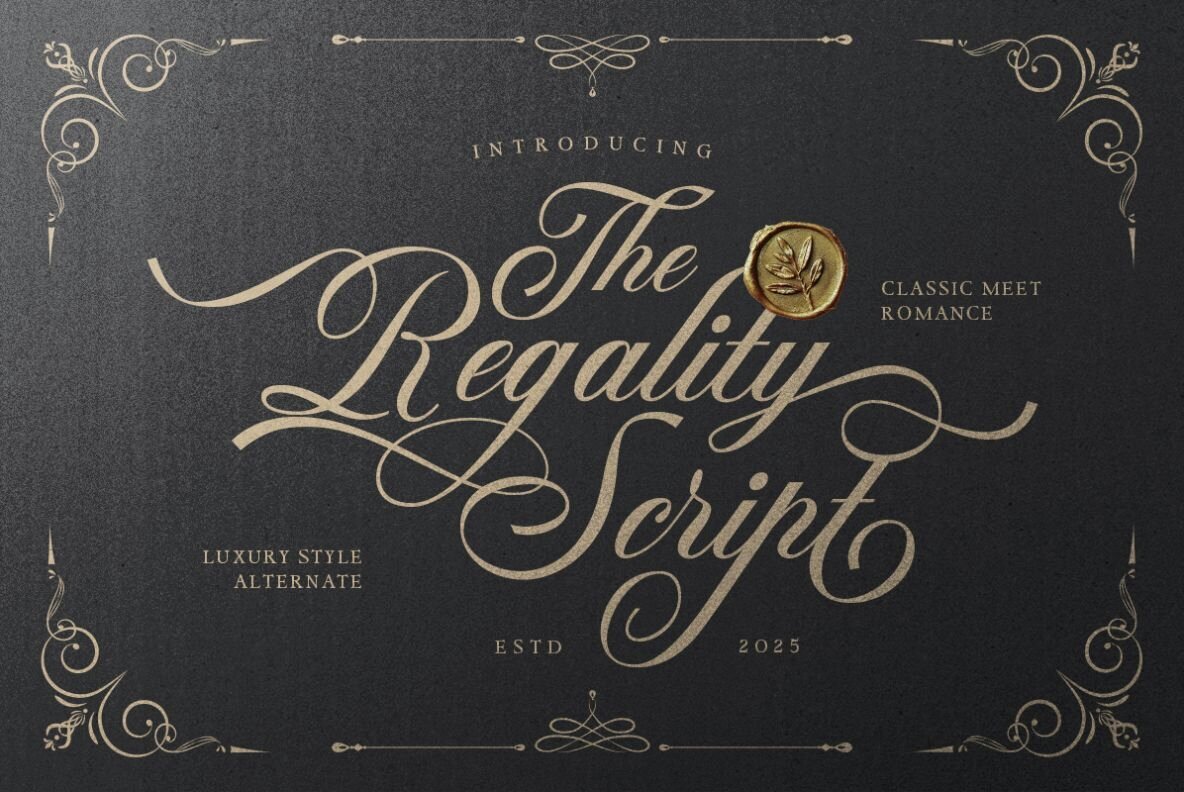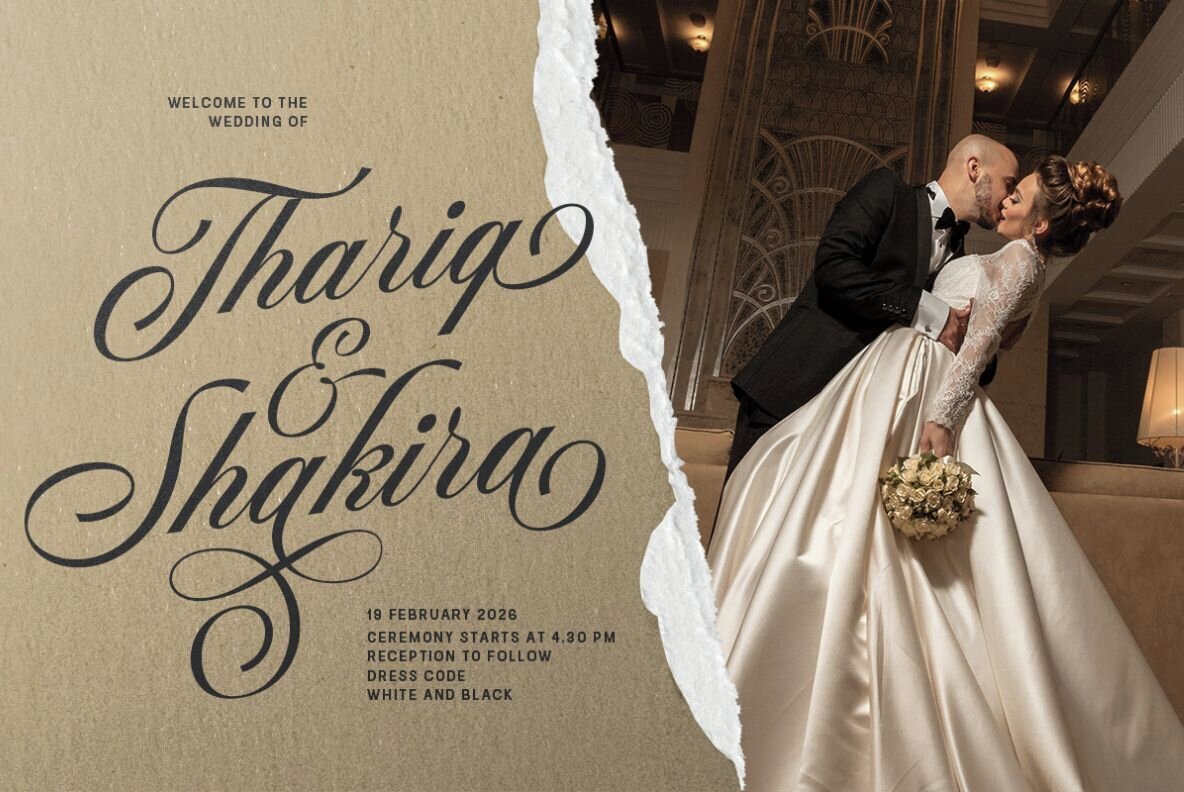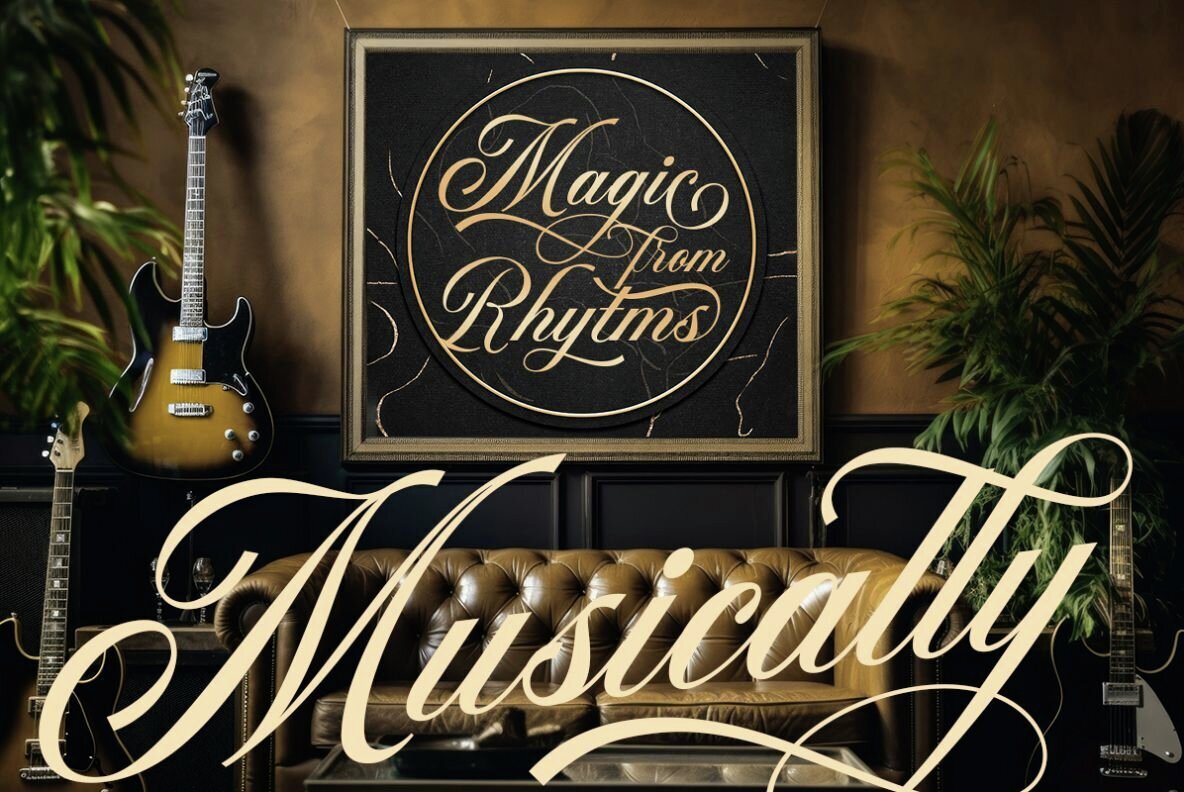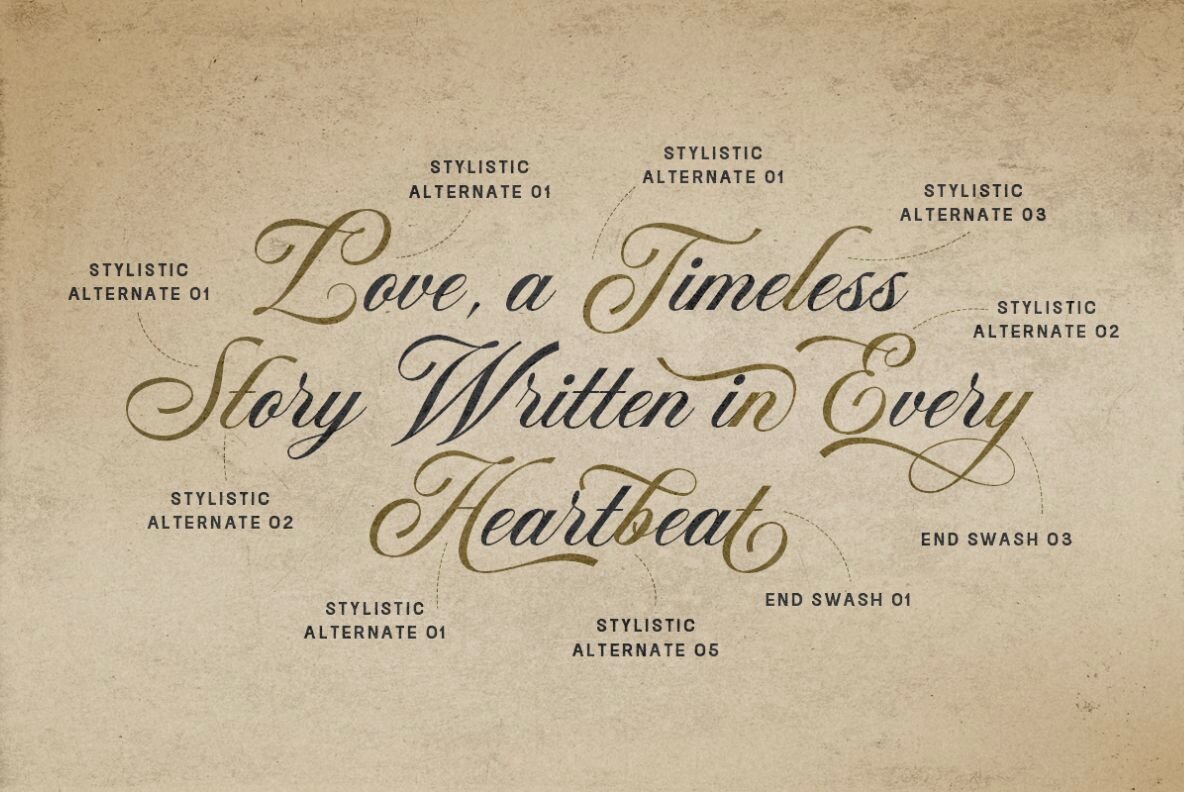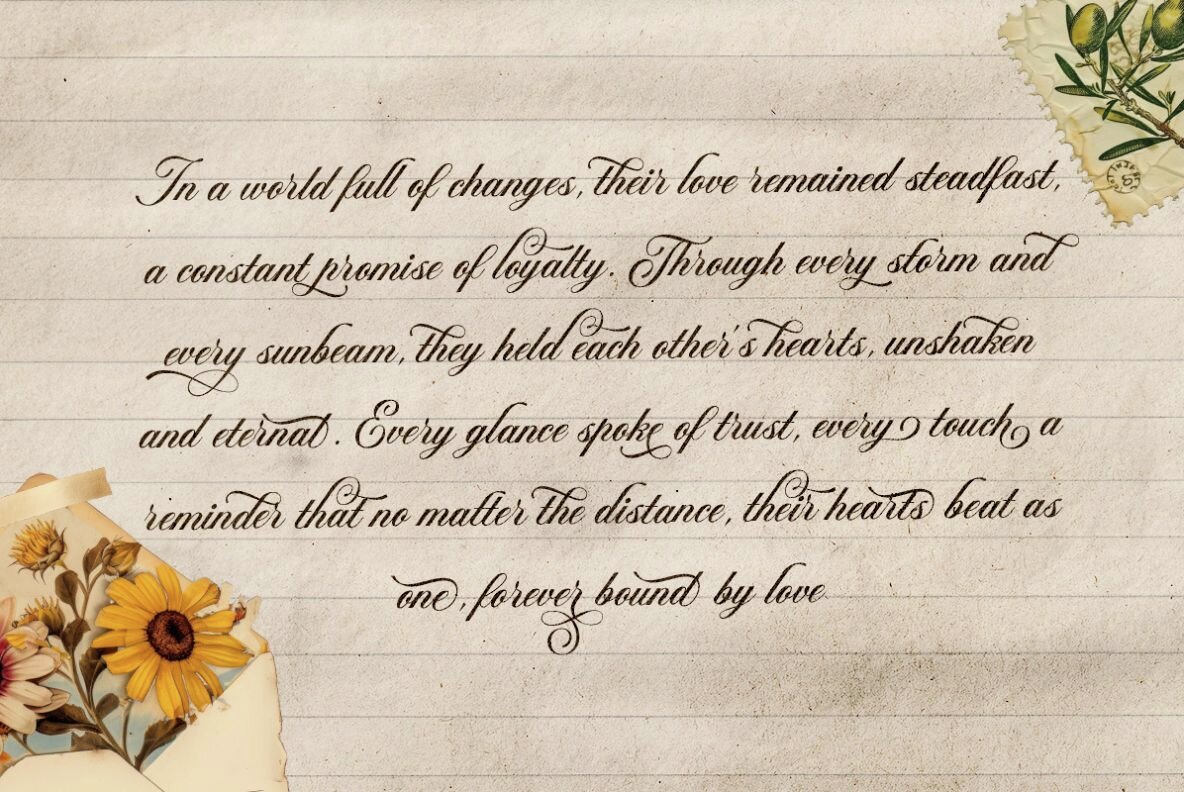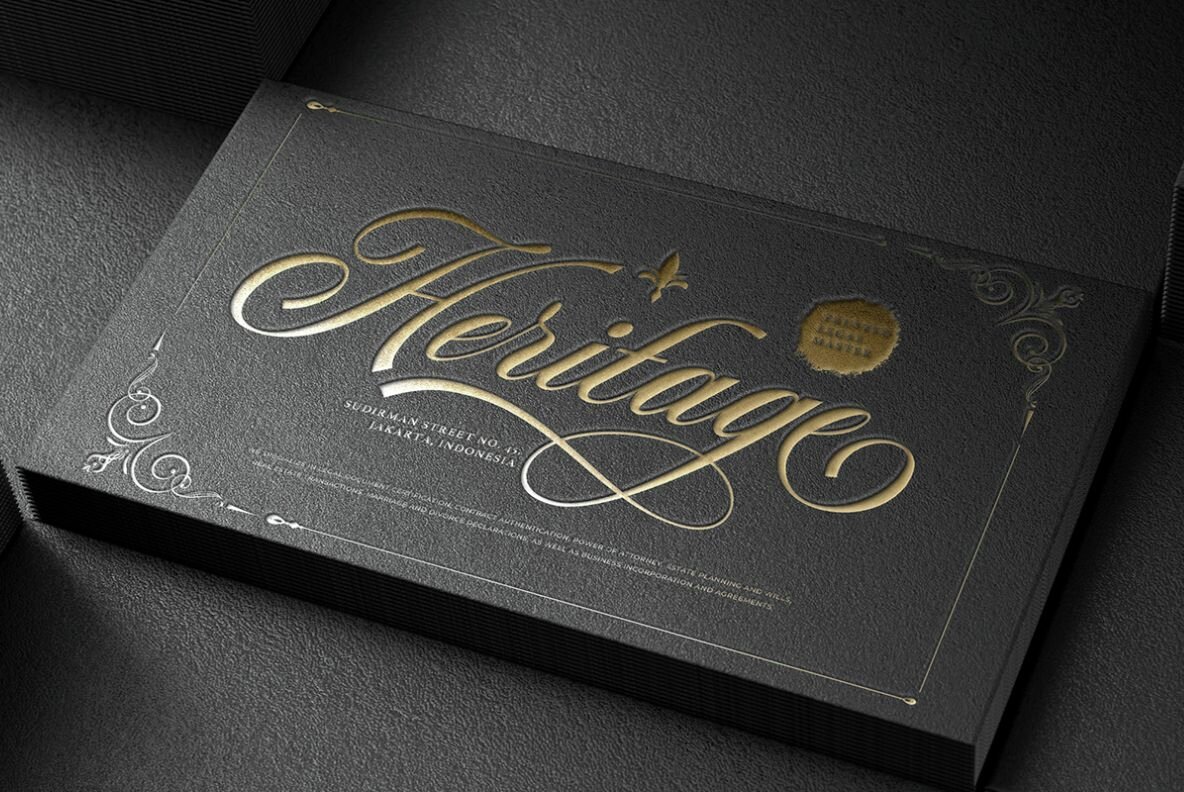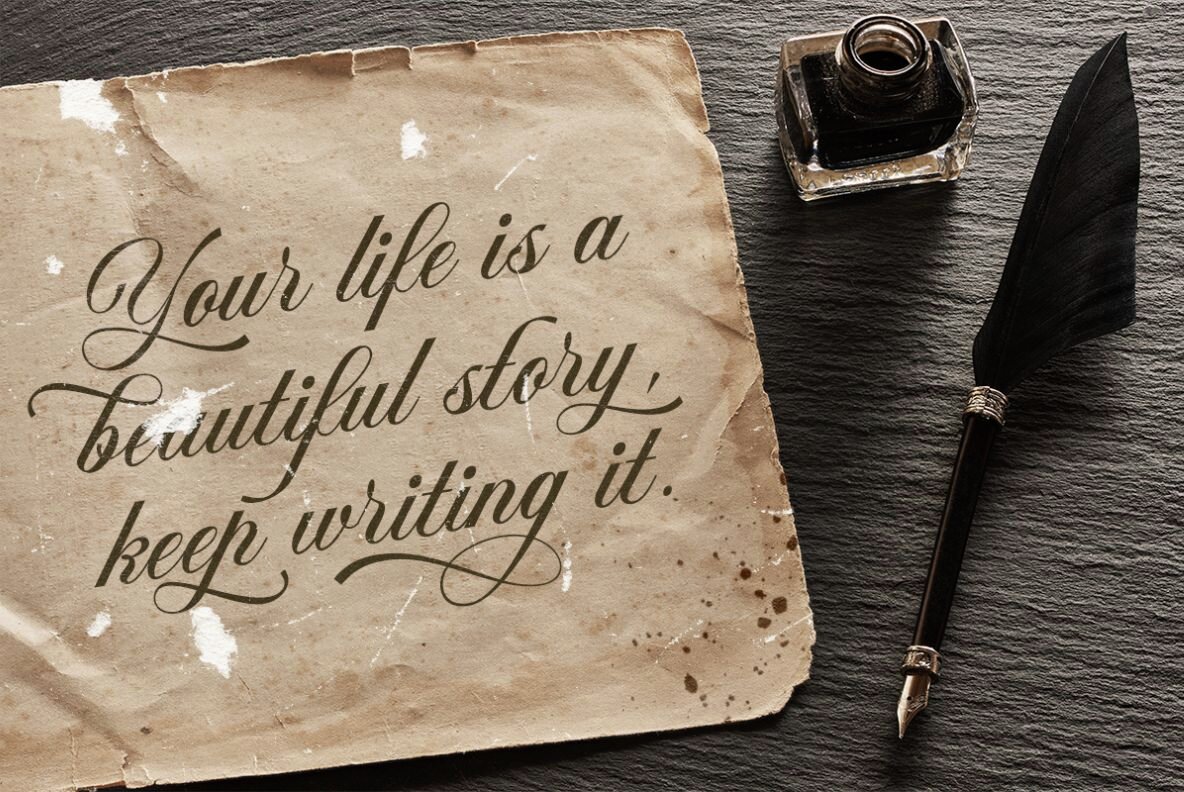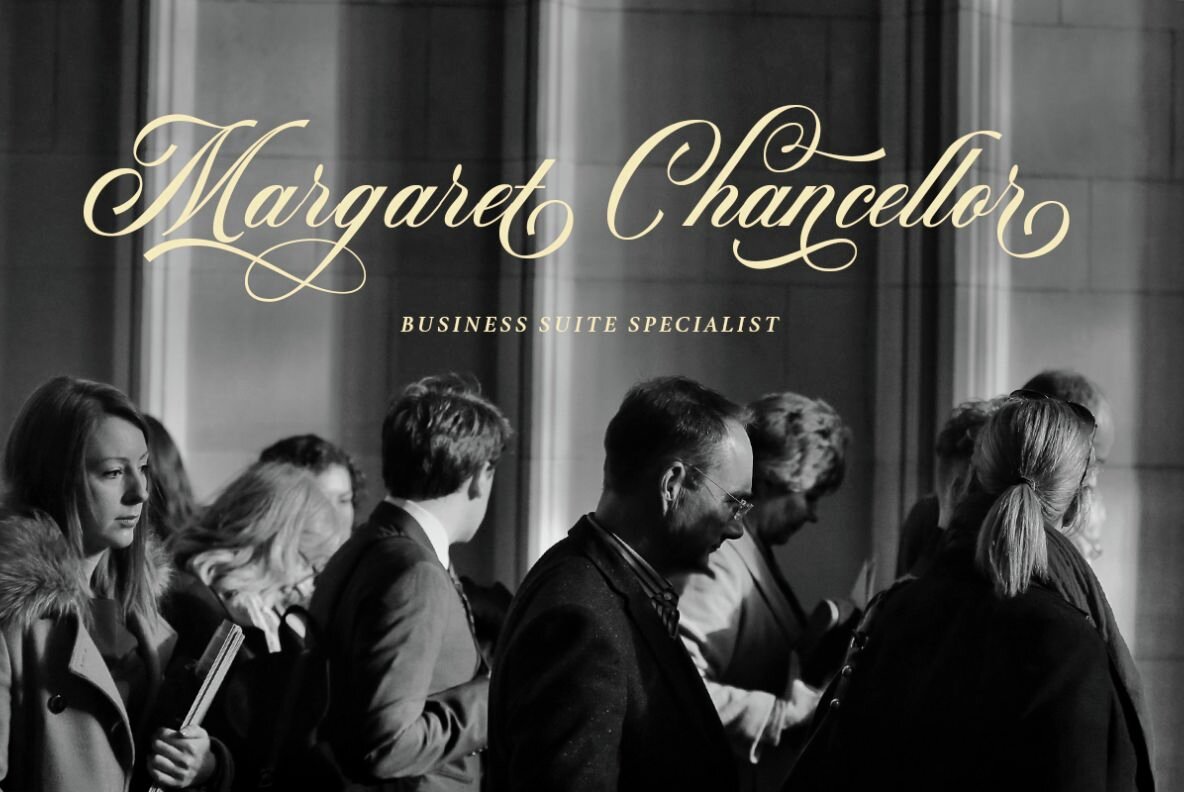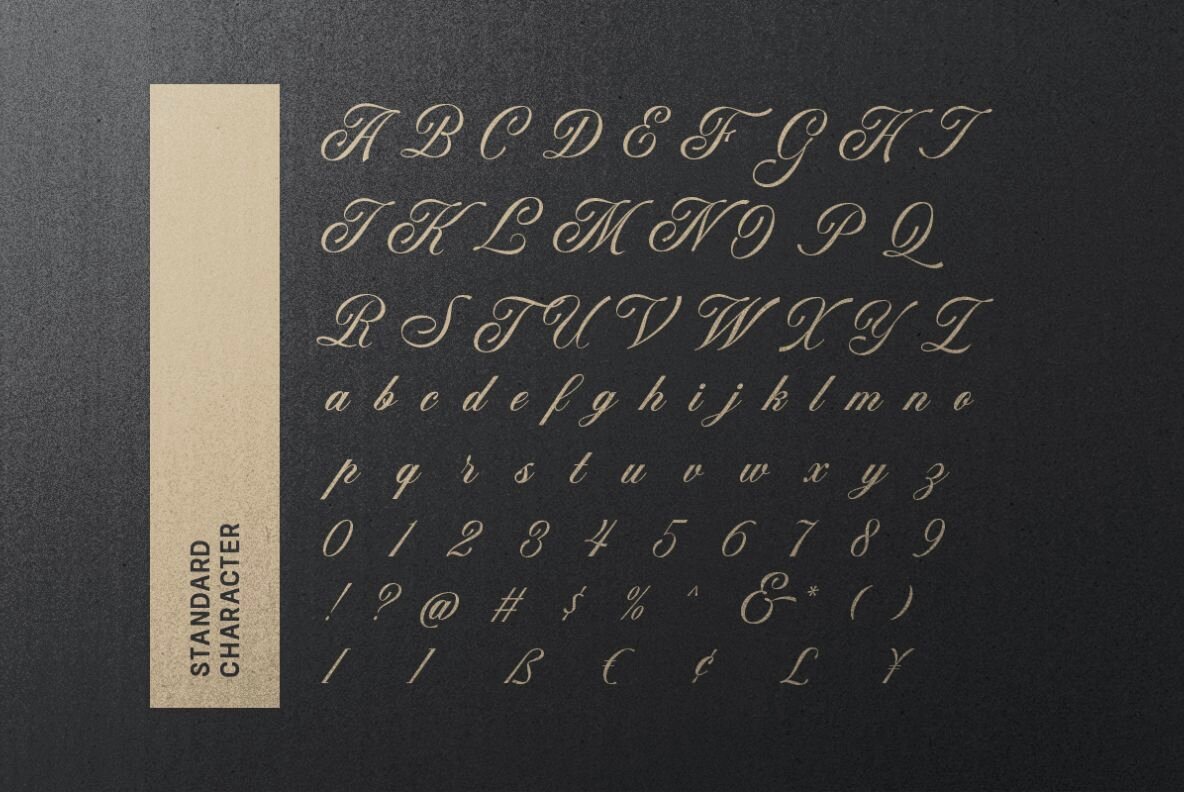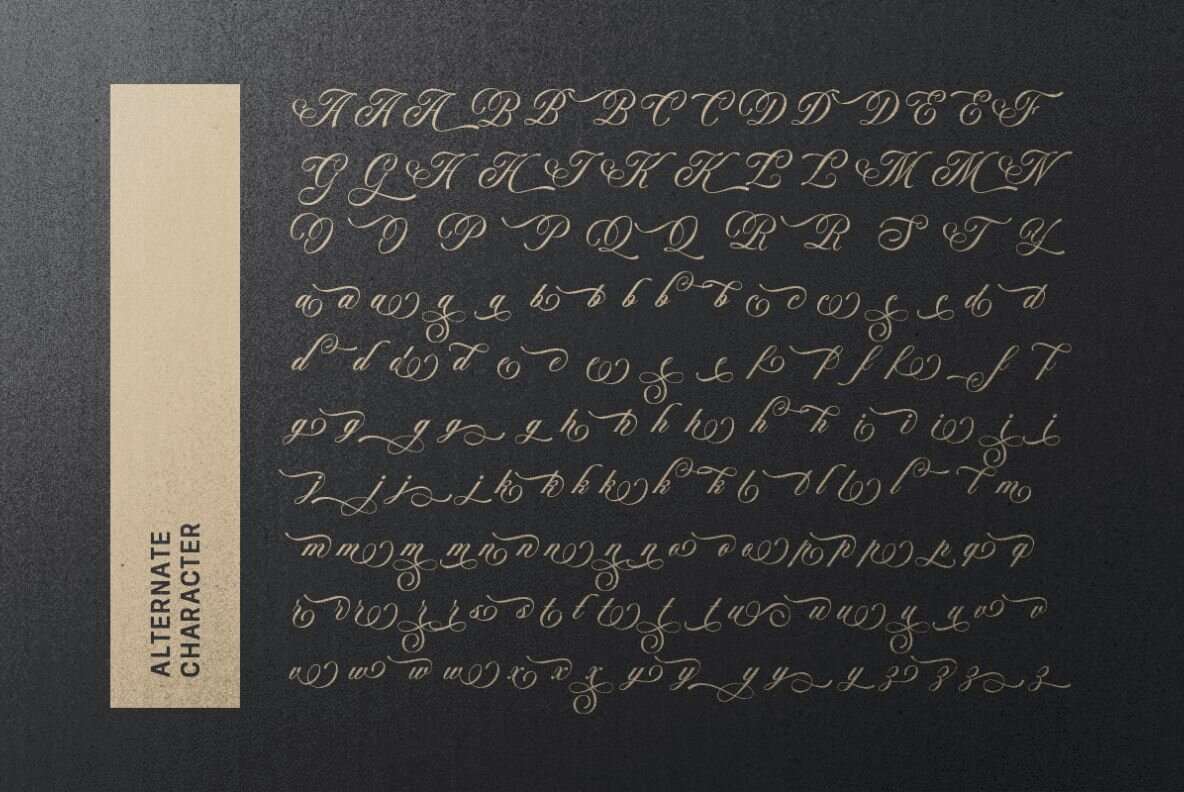
Regality Font
Regality Script
Introducing Regality — a luxury script font designed to bring romance and sophistication to your designs. Packed with stylish alternates, Regality lets you create a modern, refined look with ease. Ideal for wedding invitations, branding, quotes, and more. This versatile font also supports multiple languages, making it perfect for global appeal.